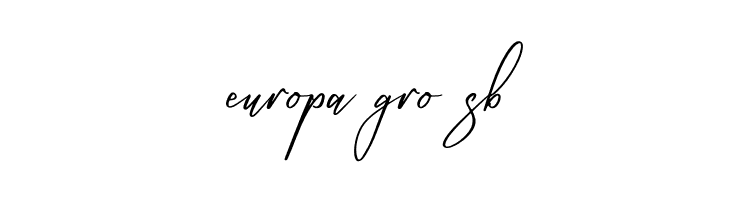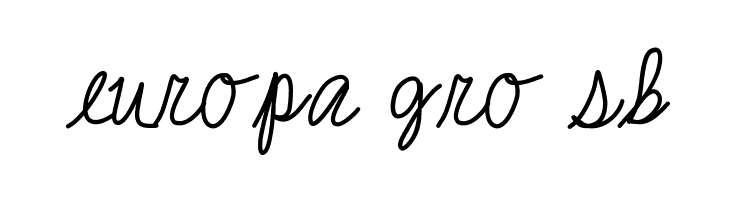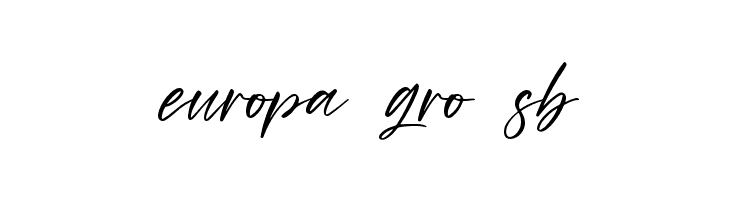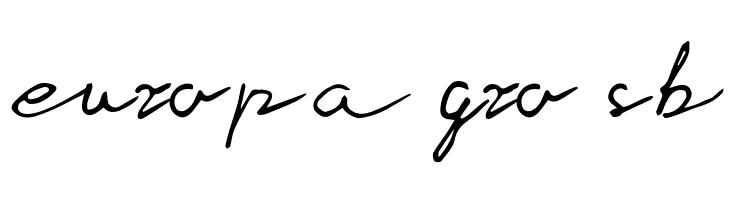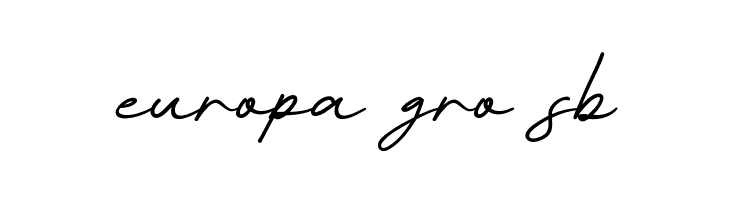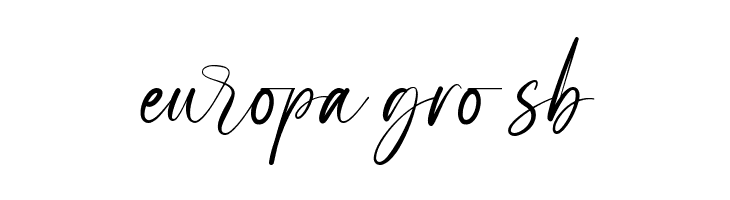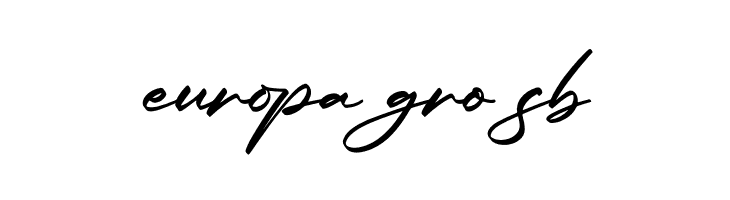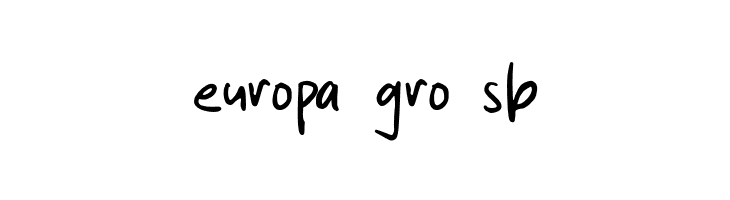
( Fonts by Integritype Studio )
An elegant, flowing script font with a natural handwritten style.
( Fonts by Wildan Type )
A modern, elegant script font with a natural handwritten style.
( Fonts by Markus Schröppel )
A lively, cursive font with a natural handwritten style.
( Fonts by Khurasan™ )
A fluid, cursive font with a natural handwriting style.
( Fonts by Lemonthe )
A sophisticated, elegant handwritten font with fluid strokes and a natural flow.
A fluid and elegant script font with a natural handwritten style.
( Fonts by MJType )
A casual, handwritten font with a natural, flowing style.
( Fonts by Integritype Studio )
A graceful, flowing script font with a natural handwriting appearance.
( Fonts by MJB Letters )
A fluid and elegant handwritten font with a natural, dynamic style.